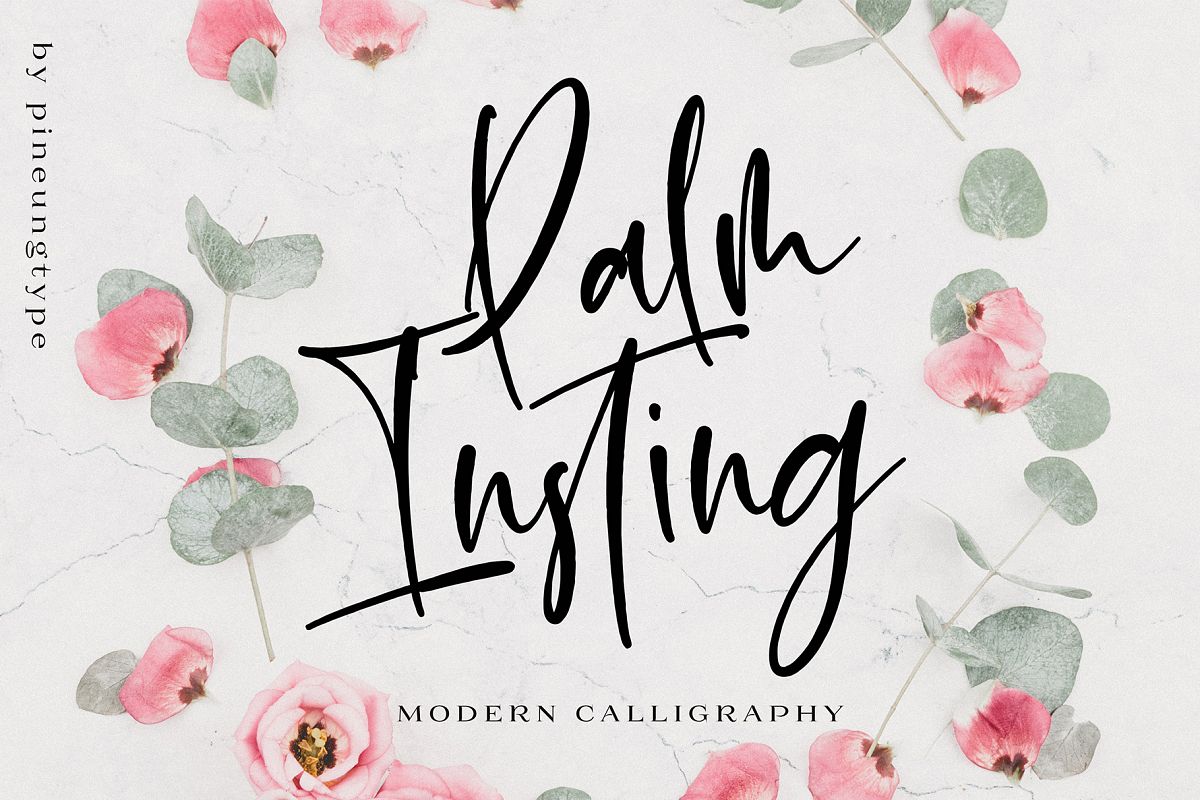
Palm Insting
Palm Insting modern Handwritten font style, this font will perfect for many different project ex: quotes, logo, blog header, poster, banding, fashion, apparel, letter, invitation, stationery, etc...